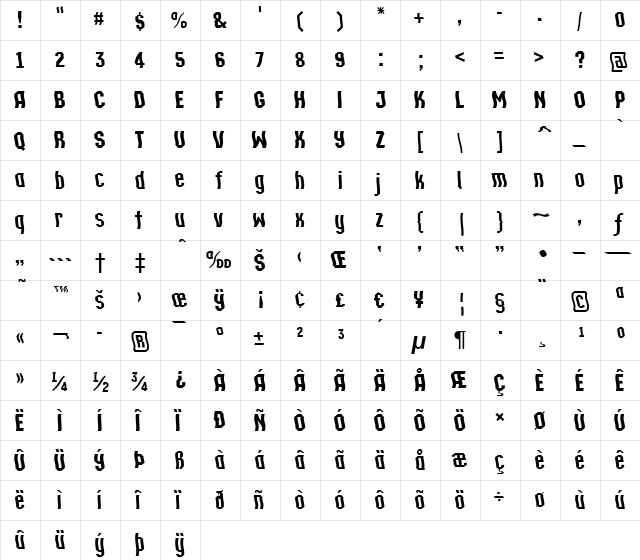
a_TechnocratWv Regular
| Designer | W.Chufarofsky & M.Slutsker |
a_TechnocratWv channels digital-age aesthetics through its sharp, structured letterforms — ideal for brands that want to signal innovation.